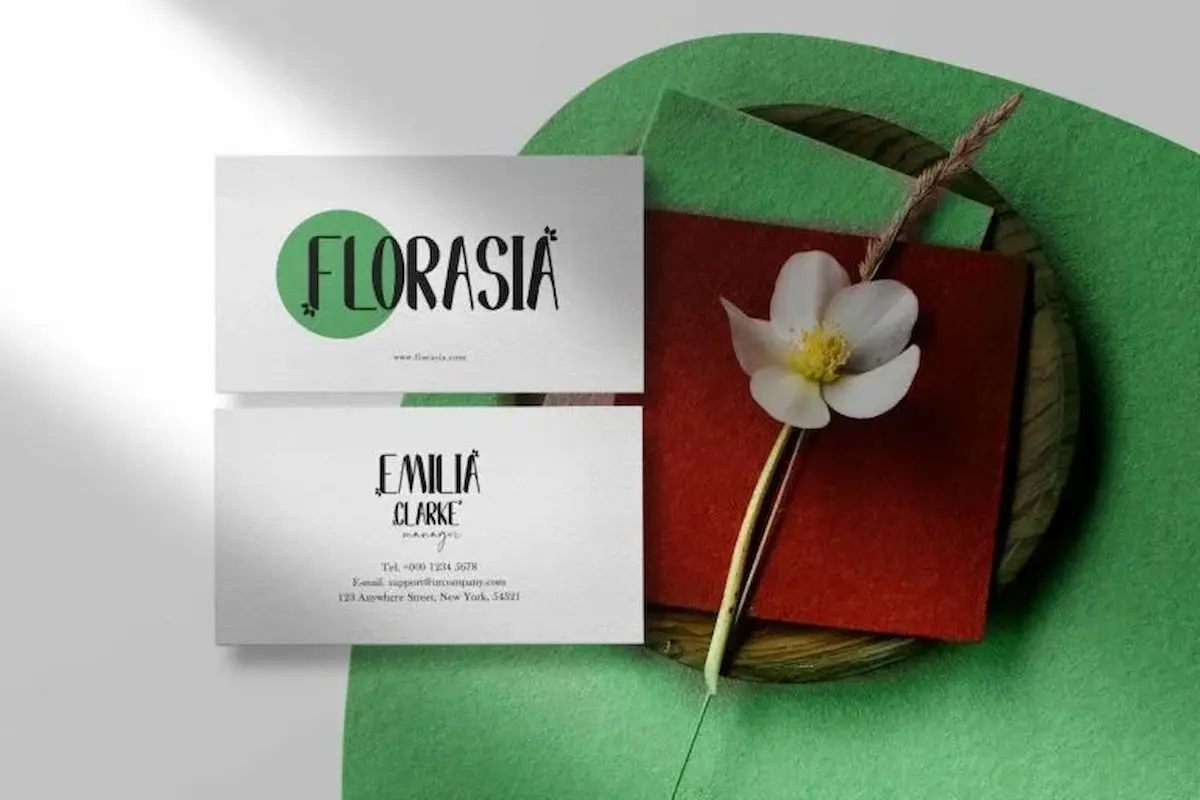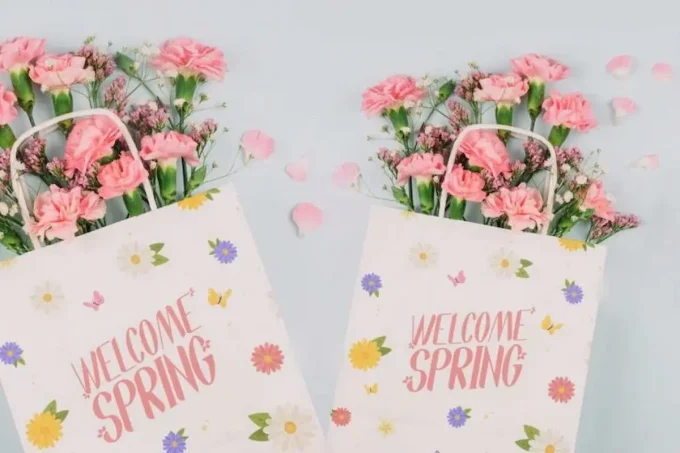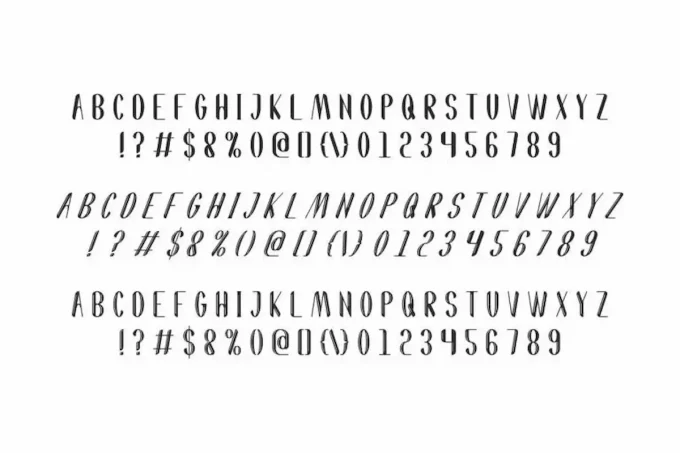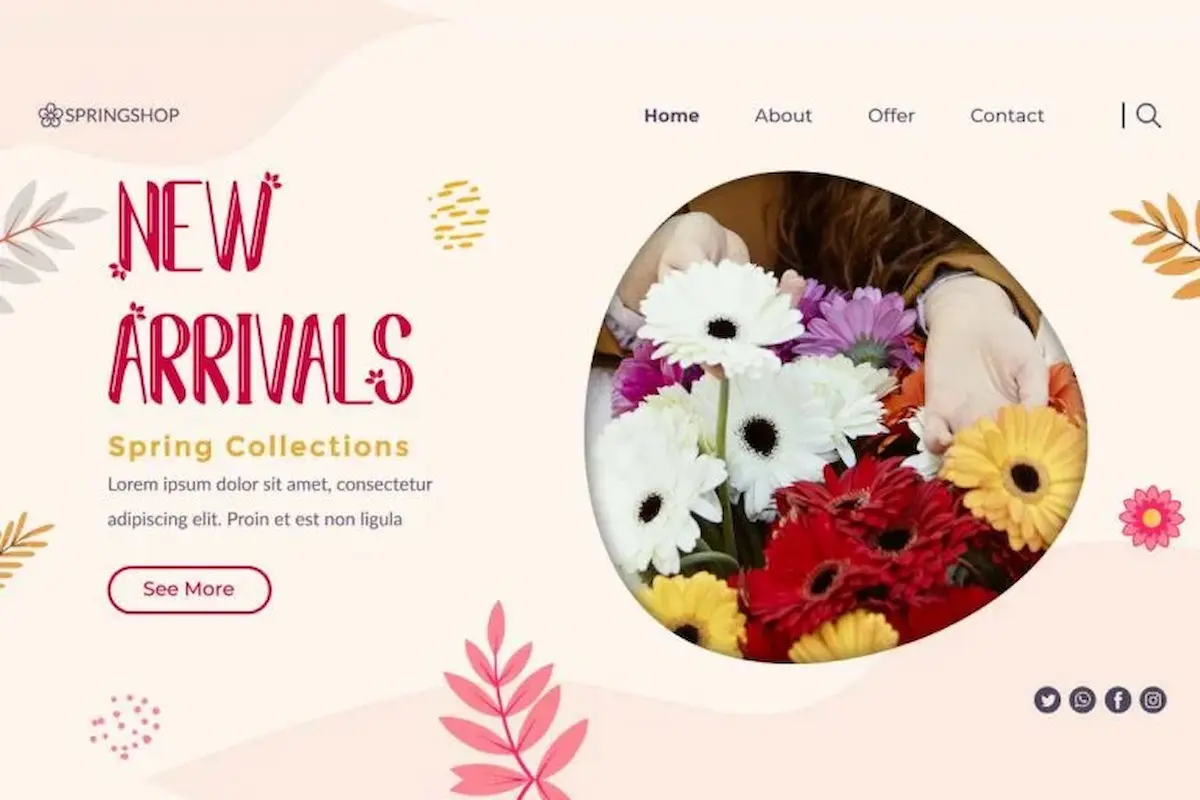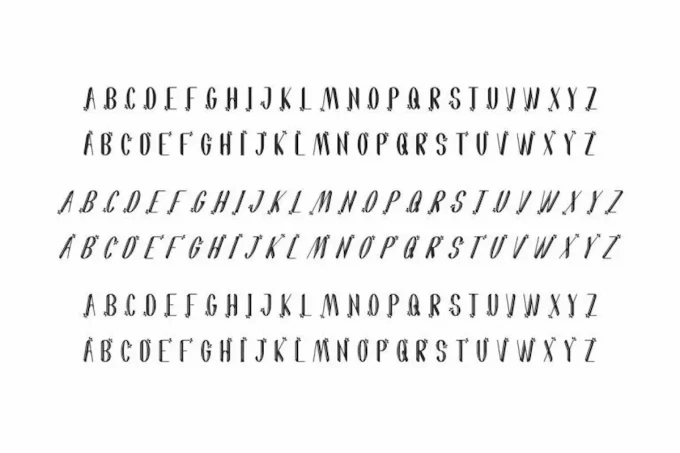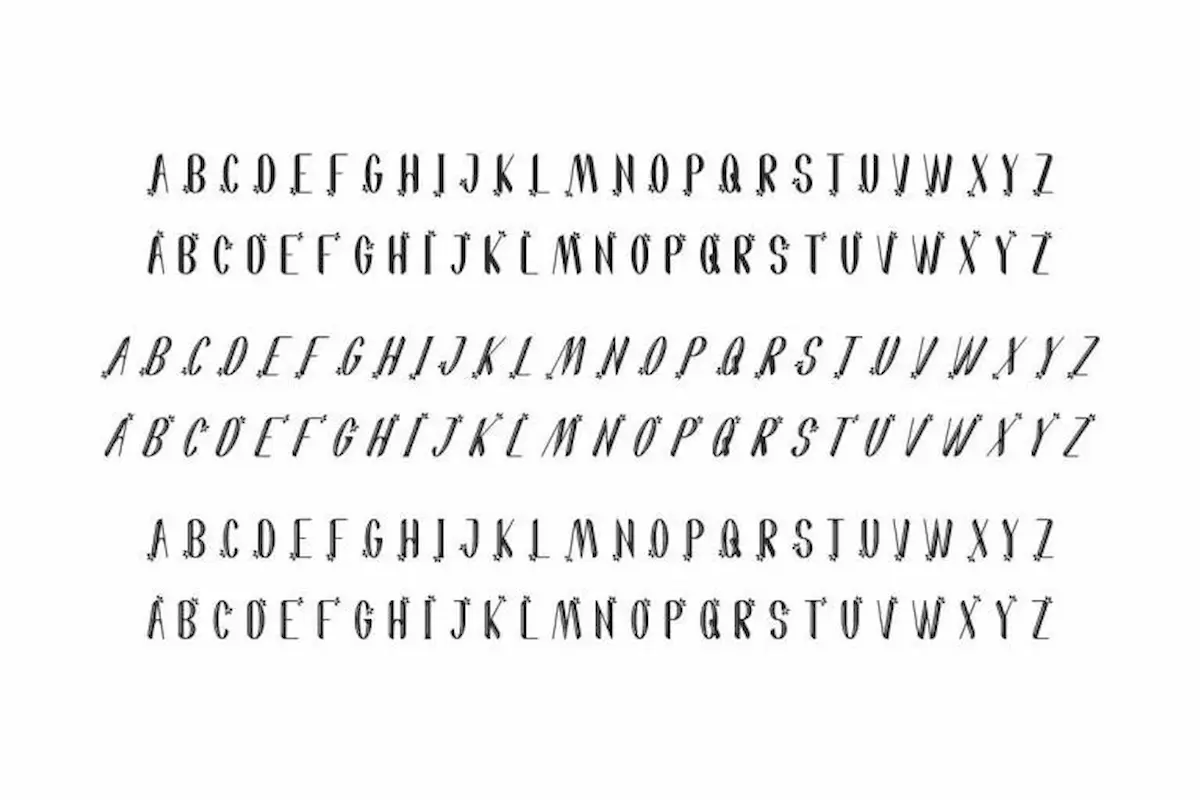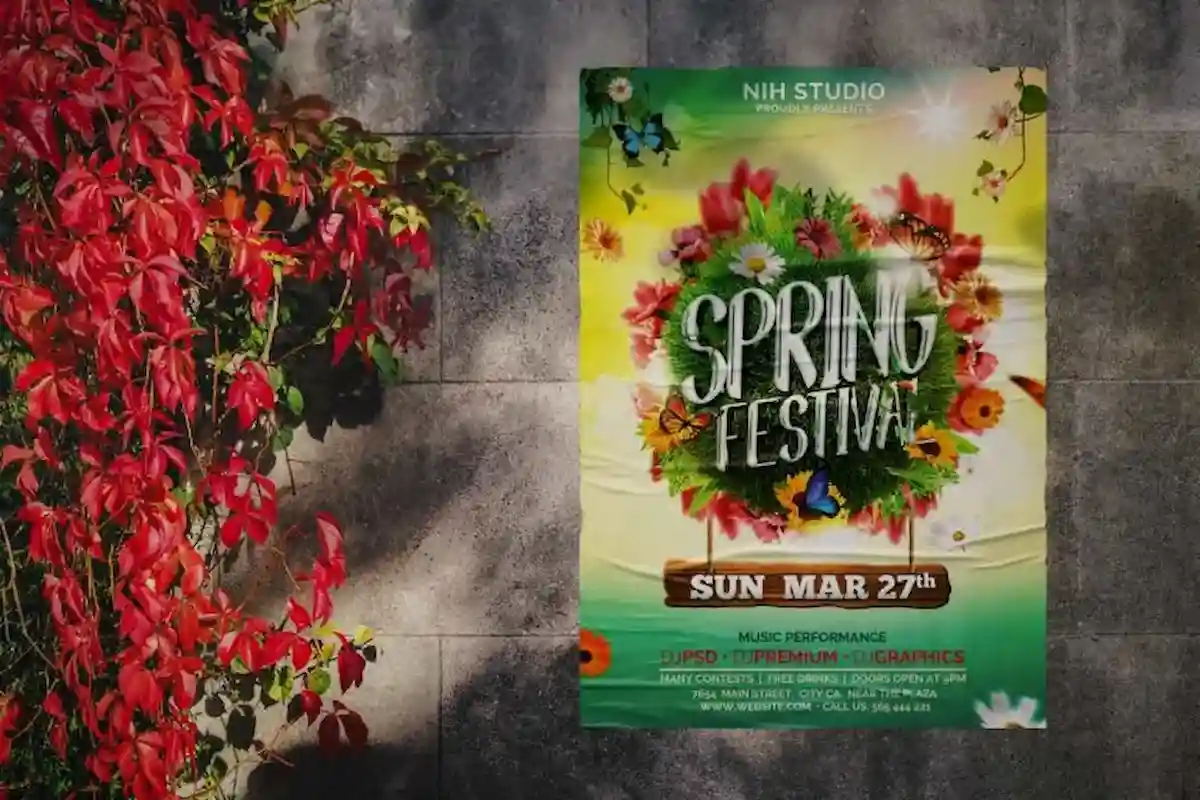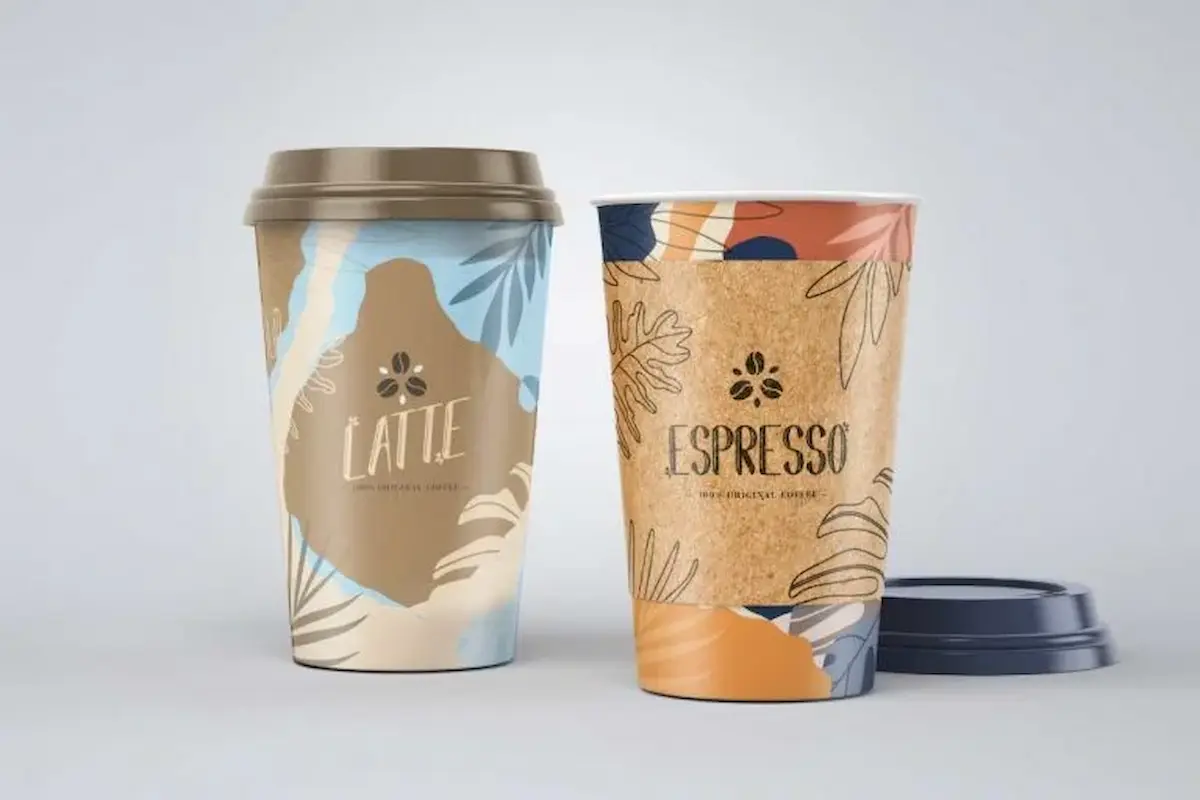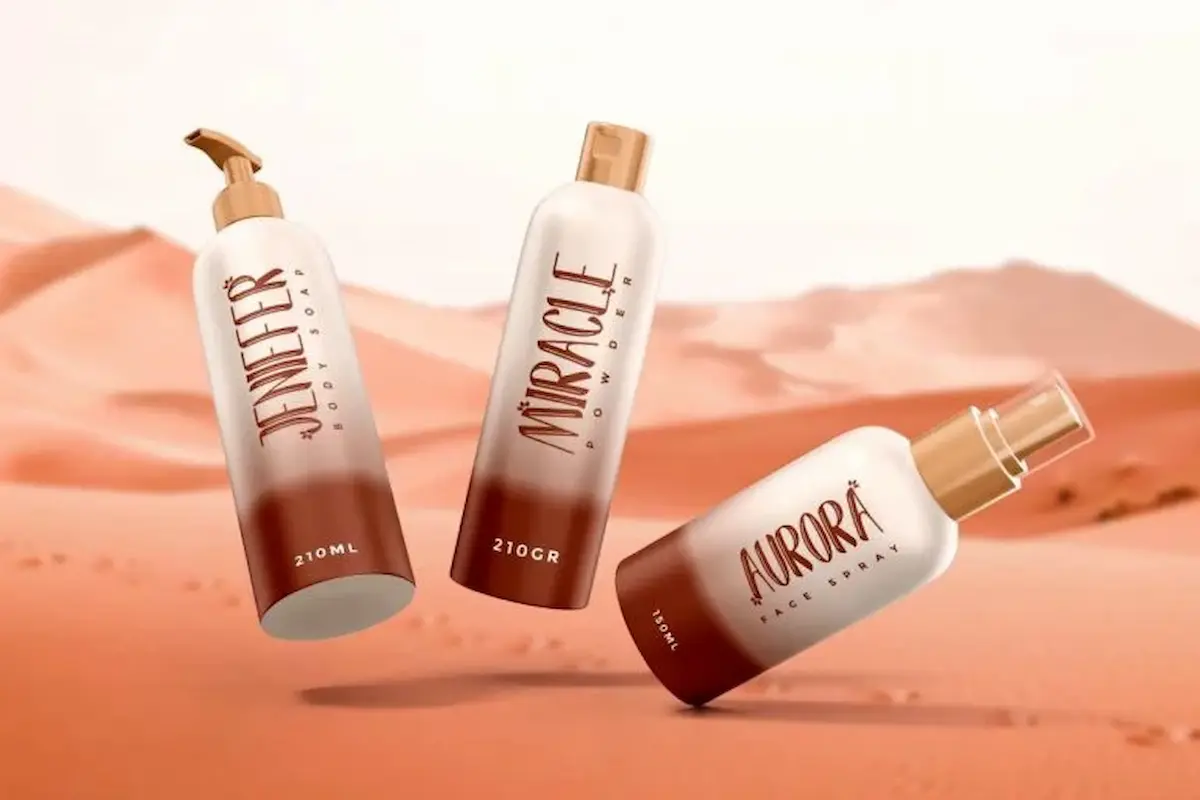
Spring Day Font is a decorative sans serif display font by NihStudio, made in 2021. Spring Day Font is great for events, brandings, magazine, events, summer promotion or other projects.